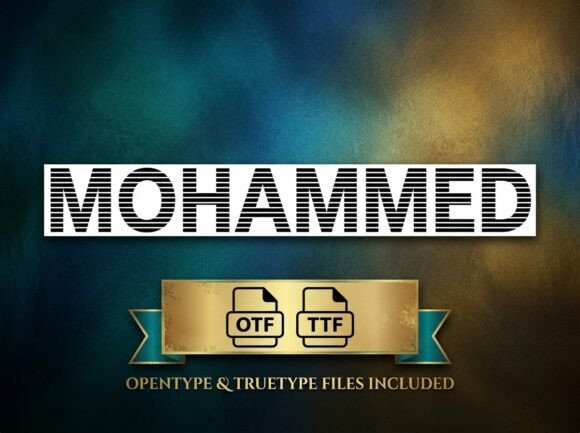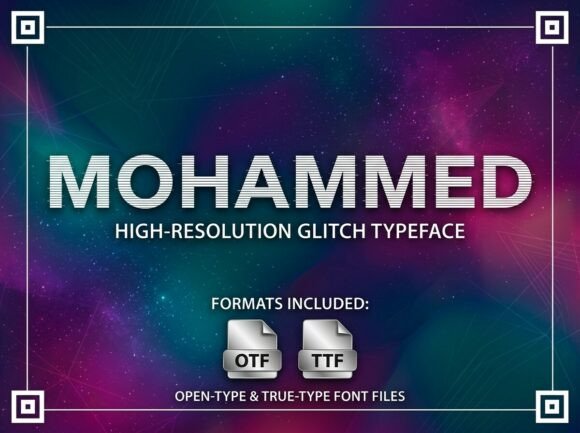
Introduction to Mohammed Font Font
Fonts play a crucial role in design, and the Mohammed Font font is a typeface that brings both character and versatility to any project. Whether you’re working on a branding project, a website, or a print design, the Mohammed Font font offers a unique style that can elevate your work.
βThis font is a stunning decorative display font designed to be the center of attention.
Featuring unique artistic elements and a strong visual personality, this font is perfect for creators who want to break away from the ordinary This font is versatile enough for bold headlines, artistic logos, and creative packaging, while maintaining a professional and polished finish.
Key Features of Mohammed Font Font
Why Choose Mohammed Font Font?
The Mohammed Font font is more than just a typeface β it’s a design tool that helps you communicate your message with style and clarity. Its unique character set and versatile design make it suitable for a wide range of applications, from elegant invitations to bold headlines.
With its carefully crafted letterforms and balanced proportions, the Mohammed Font font ensures readability and visual appeal across all mediums.
What makes Mohammed Font font special?
The Mohammed Font font stands out with its unique design, exceptional readability, and versatility across various design applications.